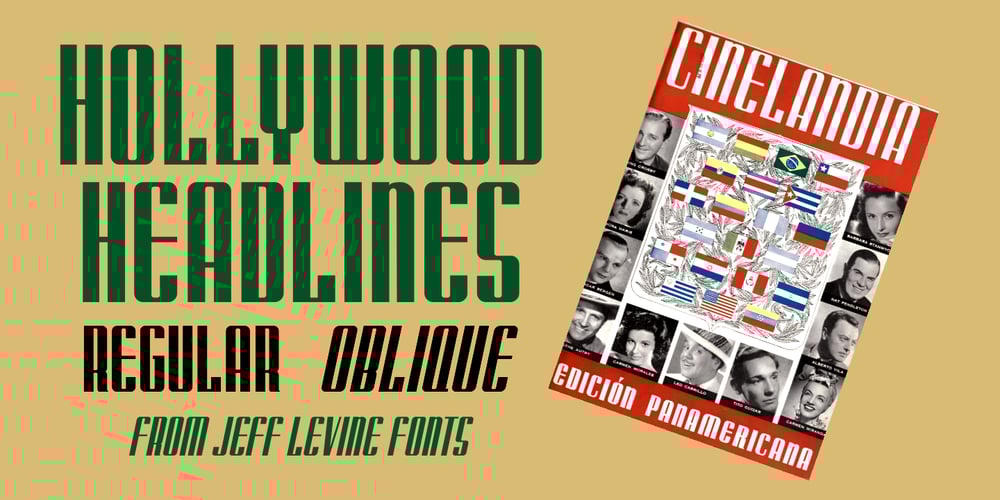
Hollywood Headlines JNL Font Family was designed by Jeff Levine and published by Jeff Levine. Hollywood Headlines JNL contains 2 styles and family package options. The May, 1941 issue of Cinelandia (a Spanish language film fan magazine) had it’s title block hand lettered in a bold, condensed Art Deco design.This highly stylized type face is now available as Hollywood Headlines JNL, in both regular and oblique versions.